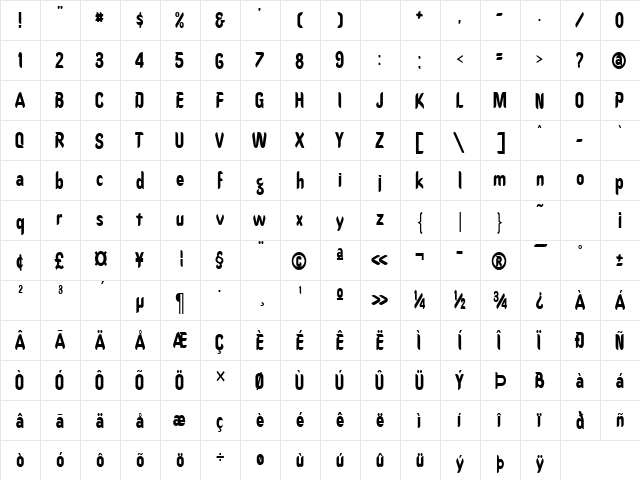
CallimarkerCondensed Normal
Design Context for CallimarkerCondensed Typeface
CallimarkerCondensed takes a measured approach to typography — its balanced proportions and neutral character make it a reliable workhorse for both digital and print work. The condensed width makes it efficient for tight spaces without sacrificing legibility.